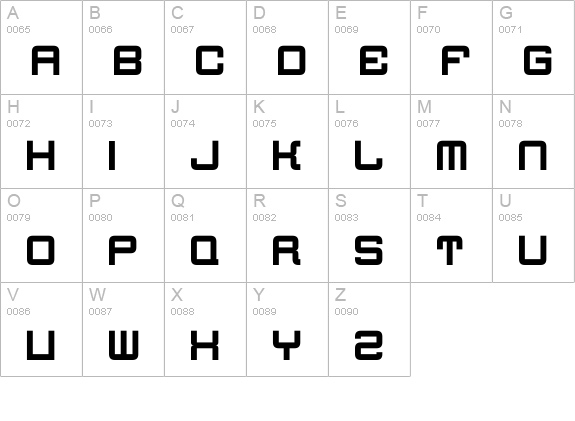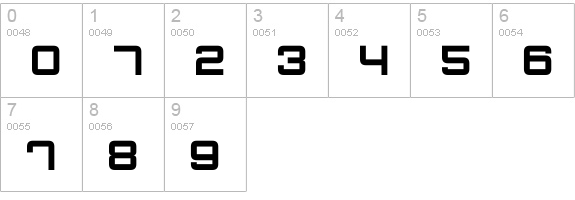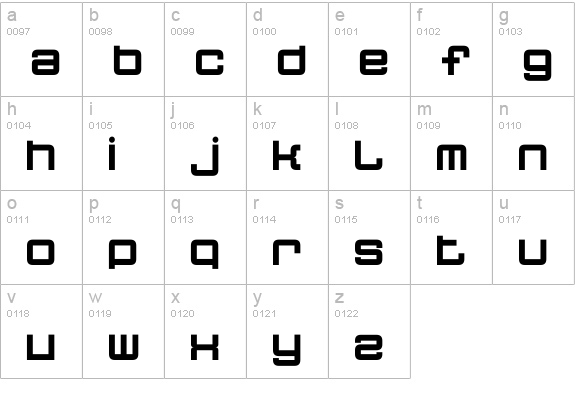
Quatron font is a stunning and versatile typeface that effortlessly captures attention and adds a touch of elegance to any design. With its clean lines, balanced proportions, and contemporary style, Quatron font is perfect for a wide range of projects, from branding and packaging to editorial and web design. What sets Quatron font apart is not just its exceptional aesthetic appeal, but also the fact that it is available for free. Yes, that's right! Quatron font is freely available to download at FontsMarket.com, making it accessible to designers and creatives of all levels and budgets. Whether you're a professional designer looking to elevate your work or a hobbyist exploring the world of typography, Quatron font is a valuable addition to your font library. Its versatility allows it to seamlessly adapt to various design themes and concepts, while its legibility ensures that your message is communicated clearly and effectively. The refined details and smooth curves of Quatron font give it a contemporary and timeless feel, making it suitable for both modern and classic designs. Its extensive character set includes uppercase and lowercase letters, numbers, symbols, and punctuation, providing you with endless possibilities for creative expression. The free availability of Quatron font at FontsMarket.com allows you to experiment and explore its potential without any financial constraints. Download it today and let your imagination run wild as you create stunning logos, captivating headlines, eye-catching posters, and much more. Quatron font is more than just a typeface; it's a design tool that empowers you to bring your visions to life. So why wait? Embrace the freedom and creativity that Quatron font offers and take your designs to new heights. Download it now, exclusively at FontsMarket.com.